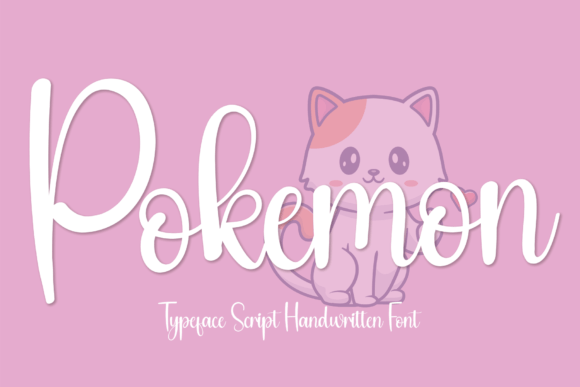
In a world saturated with monotony, where fonts often blend into a sea of sameness, Pokemon Font emerges as a beacon of originality, an artistic masterpiece that ignites the senses and elevates designs to new heights of sophistication. Its graceful strokes, reminiscent of a skilled calligrapher's hand, dance across the page, captivating the eyes with their fluidity and charm.
As a script font, Pokemon Font possesses an inherent elegance, a timeless quality that transcends fleeting trends. Its intricate curves and flourishes evoke a sense of nostalgia, harkening back to an era of handwritten letters and personalized communication. Yet, within this classicism lies a touch of modernity, a subtle hint of playfulness that keeps the font feeling fresh and relevant.
Step into a realm of creativity where Pokemon Font reigns supreme, guiding your designs towards greatness. This font is a versatile chameleon, effortlessly adapting to a myriad of projects, from heartfelt wedding invitations to eye-catching marketing campaigns. Its inherent charm adds a touch of sophistication to logos and branding, while its playful nature lends itself perfectly to children's books and whimsical illustrations.
With Pokemon Font as your creative companion, the possibilities are boundless. Unleash your imagination and craft designs that speak to the heart, designs that leave an indelible mark on the minds of your audience. Let the flowing strokes of this font carry your words and visuals to new heights, creating a visual symphony that resonates with elegance and grace.
Seize the opportunity to make your designs shine, to leave a lasting impression that lingers long after the page is turned or the screen is closed. Embrace the transformative power of Pokemon Font and embark on a creative journey that knows no limits.